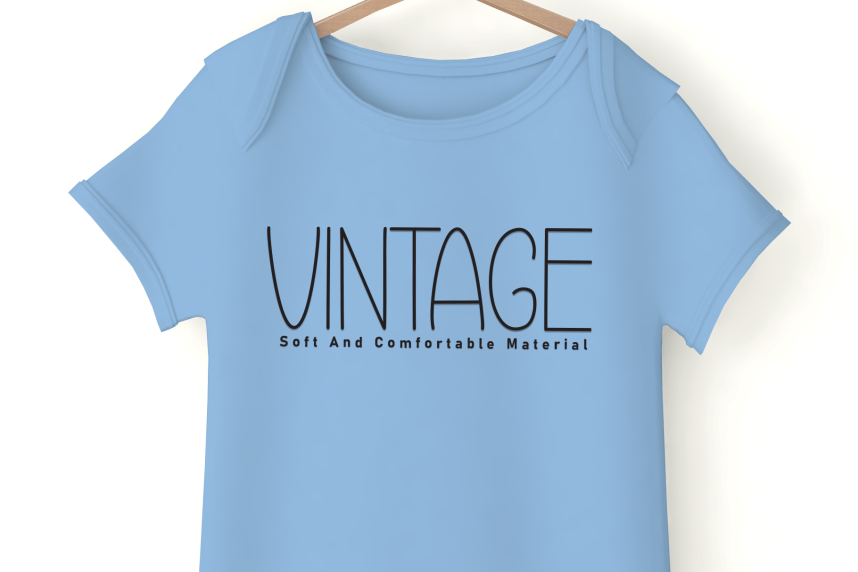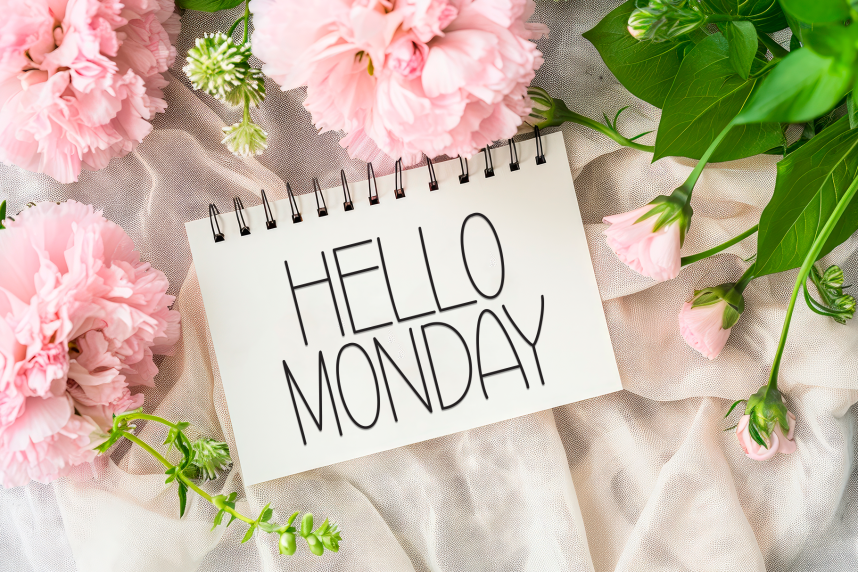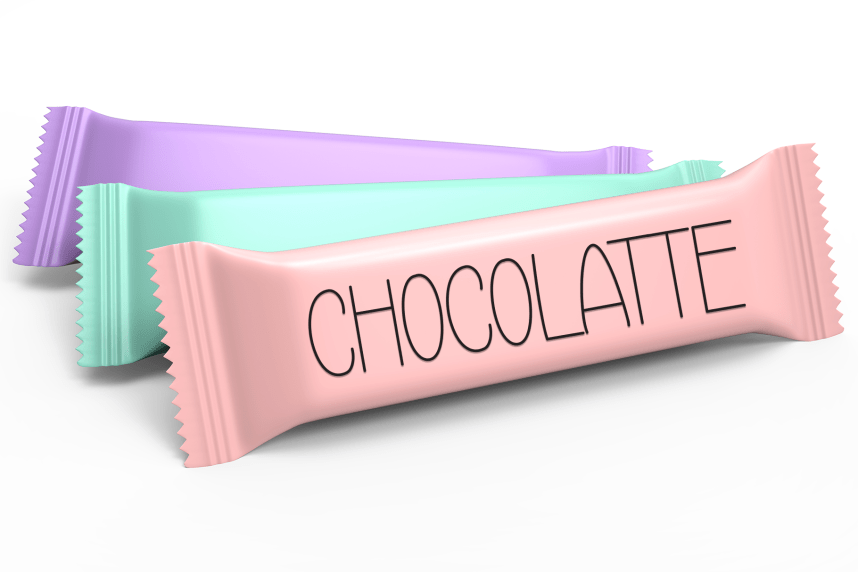
Party Birthday – Creative And Unique Font
Party Birthday – Creative And Unique Font is a sweet and friendly handwritten display font. Cute and fun, this font is ideal for writing wedding invitations, cards, or any other design that might need a playful touch!